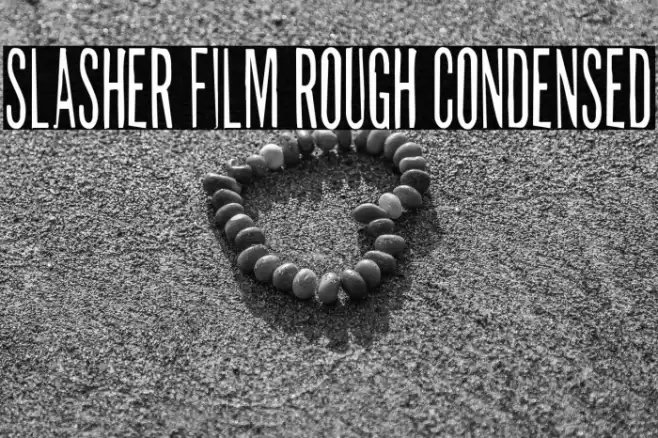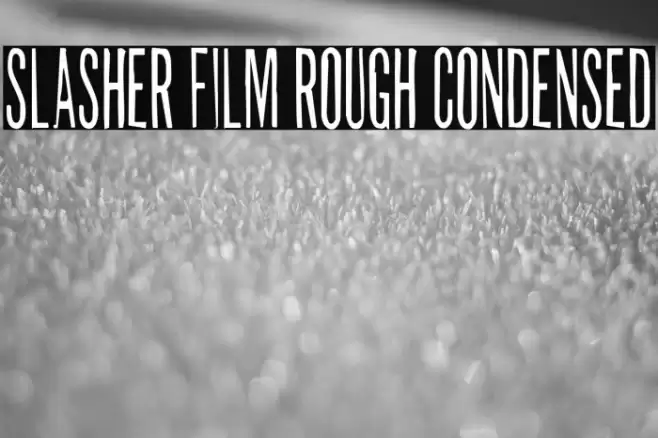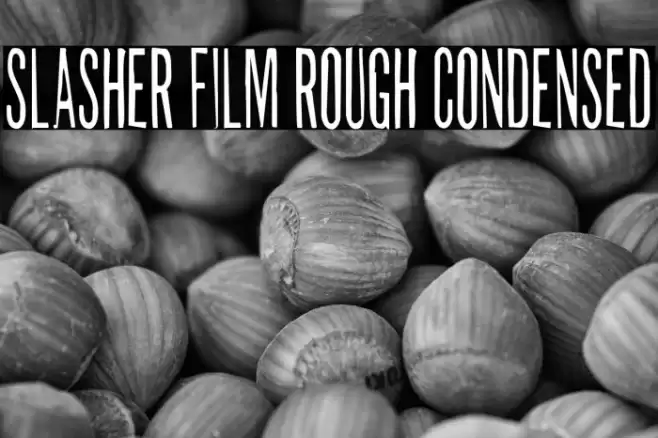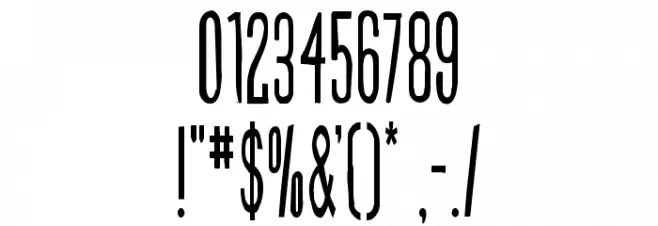
Slasher Film Rough Condensed Font
Slasher Film Rough Condensed Description
This font features a rough, distressed appearance with a condensed structure, giving it a gritty and edgy feel. The uppercase and lowercase letters are tall and narrow, with uneven edges that contribute to its rugged aesthetic. The numbers and special characters maintain this rough style, making it ideal for projects that require a bold, attention-grabbing look. The font's unique texture and condensed form make it stand out, suitable for creative and unconventional designs.
A rough, condensed font with a gritty and edgy appearance from Regular fonts.
- Font: Slasher Film Rough Condensed
- Proposed Projects: Ideal for horror movie posters, edgy album covers, and bold graphic design projects.
- Character Spacing: Tight